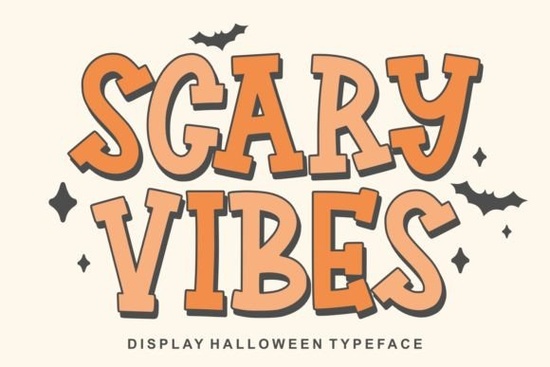
If you're looking for a Halloween font that feels spooky without crossing into cartoon territory, Scary Vibes is worth a close look. It's a contemporary display serif with a dark, elegant personality the kind of typeface that works just as well on a party invitation as it does on a t-shirt design. Whether you're a Cricut crafter, a print-on-demand seller, or someone who just loves making Halloween decorations, this font brings a moody sophistication that's hard to find elsewhere.
What Makes Scary Vibes Different from Other Halloween Fonts?
Most Halloween fonts lean hard into one of two directions: goofy and cartoonish, or overly distressed and grungy. Scary Vibes takes a different approach with its serif structure. The letterforms feel refined, almost luxurious, while still carrying that unmistakable dark, haunted energy. Think of it as the difference between a tacky costume store and a gothic mansion both scream Halloween, but one does it with a lot more taste.
This balance makes it surprisingly versatile. You can use it for:
- Halloween party invitations that look stylish, not cheesy
- T-shirt designs for seasonal print-on-demand shops
- Mugs, stickers, and keychains with a spooky flair
- Logos and banners for October promotions or events
- Greeting cards that blend warmth with a little eeriness
Who Is This Font Best For?
Scary Vibes is a great fit for several types of creators:
- Print-on-demand sellers who need seasonal designs that stand out from the saturated Halloween market
- Small business owners running October promotions, fall festivals, or themed events
- Cricut and Silhouette crafters making home décor, apparel, or personalized gifts
- Graphic designers working on posters, flyers, or social media graphics with a dark aesthetic
- Creative hobbyists who enjoy scrapbooking, card-making, or DIY projects
It's particularly useful if your audience or customers appreciate Halloween designs that feel elevated rather than over-the-top. The serif style gives it enough structure to pair nicely with clean sans-serifs for body text, or with ornate scripts for a more dramatic look.
How Does It Compare to Other Halloween Display Fonts?
There are plenty of Halloween fonts on Creative Fabrica, but many fall into predictable patterns. Scary Vibes stands out because it doesn't try too hard. The serif construction gives it a timeless quality it won't look dated next October. And because it's classified as a display font, it's meant to be used at larger sizes where its details really shine.
Quick Checklist Before You Buy
- Check your use case Do you need it for print-on-demand, crafting, or client design work?
- Test readability Display fonts work best at larger sizes; make sure it fits your layout
- Verify Cricut compatibility Scary Vibes cuts cleanly, but always do a test cut first
- Pair it wisely Use a simple sans-serif for any body copy or smaller text
If your designs need that dark, polished Halloween energy without looking like clip art, Scary Vibes is a solid addition to your font library. It's practical, stylish, and built for real-world use on both screens and cutting machines.